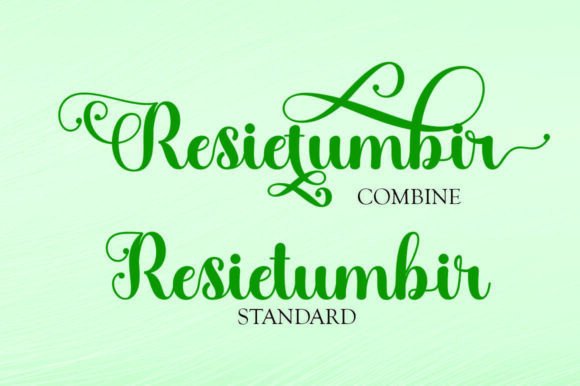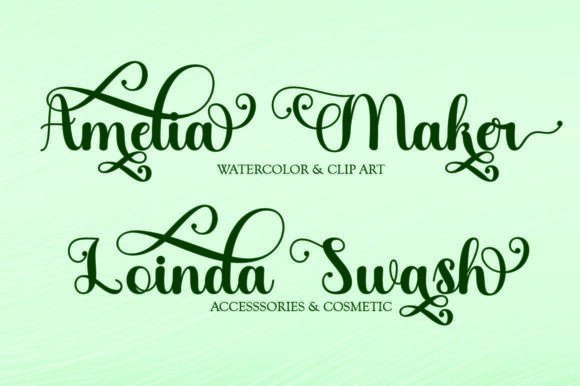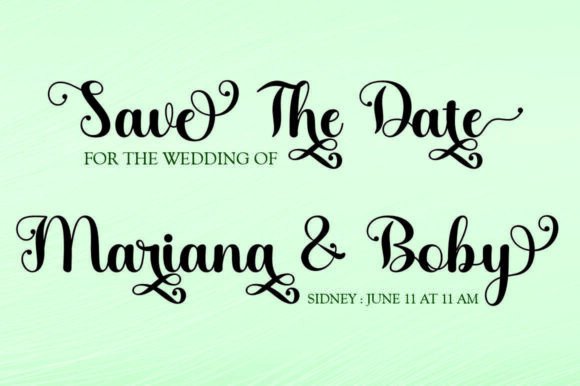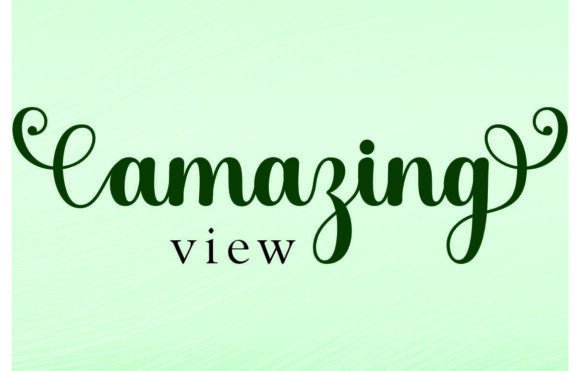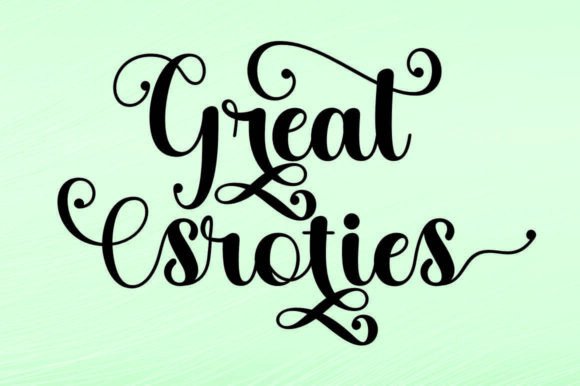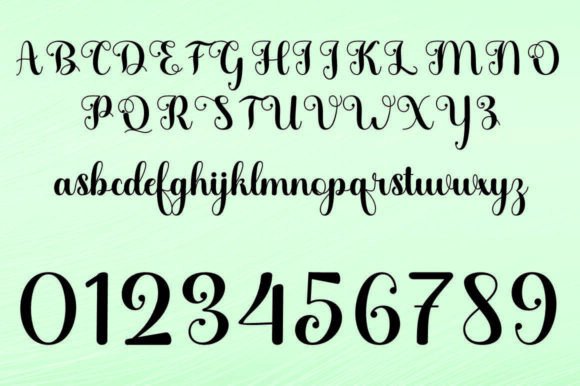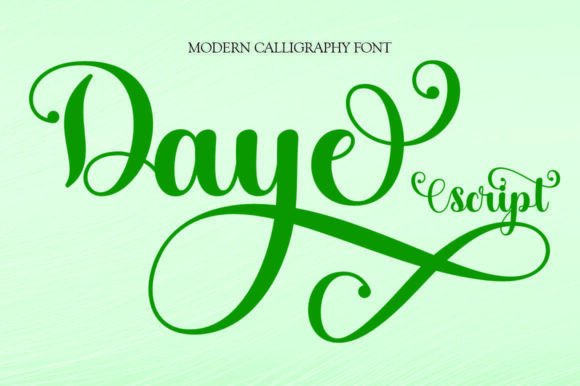
Introducing Daye Script Font: Elevate Your Designs with Elegance and Sophistication
In the world of typography, a well-crafted font can make all the difference in elevating your design to the next level. For designers and crafters seeking a modern calligraphy style that exudes casual elegance, look no further than the Daye Script Font. This beautiful font is designed to bring a touch of sophistication to a wide range of projects, from wedding invitations and signage to headlines, logos, packaging, and product branding.
What is Daye Script Font?
Daye Script is a modern calligraphy design volume that embodies the perfect blend of casual and graceful elements. Its fluid strokes and elegant letterforms make it an ideal choice for designers looking to add a personal touch to their work. Whether you’re creating a romantic wedding invitation or a bold brand logo, Daye Script Font is sure to impress.
Key Features of Daye Script Font
- Modern Calligraphy Style: Daye Script Font boasts a fresh and contemporary calligraphy style that’s perfect for designers looking for a unique and stylish font.
- Casual yet Elegant: The font’s casual elegance makes it suitable for a wide range of projects, from formal events to everyday branding.
- Highly Versatile: Daye Script Font can be used for various design applications, including wedding invitations, signage, headlines, logos, packaging, and product branding.
- Easy to Read: Despite its elegant and cursive nature, Daye Script Font remains highly legible, making it perfect for both digital and print designs.
Use Cases for Daye Script Font
Daye Script Font’s versatility makes it an excellent choice for various design projects. Here are some of the most popular use cases:
- Wedding Invitations: Add a touch of romance and elegance to your wedding invitations with Daye Script Font.
- Signage: Create eye-catching signage for events, businesses, or exhibitions with this stylish font.
- Headlines and Logos: Use Daye Script Font to create bold and memorable headlines and logos that capture your brand’s personality.
- Packaging and Product Branding: Elevate your product packaging and branding with a touch of sophistication and elegance.
Why Choose Daye Script Font?
With so many fonts available, why choose Daye Script Font? Here are a few compelling reasons:
- Unique and Exclusive: Daye Script Font offers a fresh and unique calligraphy style that sets it apart from other fonts.
In conclusion, Daye Script Font is an exceptional modern calligraphy design volume that offers a perfect blend of casual elegance and sophistication. Its versatility, legibility, and stylish letterforms make it an ideal choice for designers and crafters looking to elevate their designs. Whether you’re working on a wedding invitation, signage, headline, logo, packaging, or product branding, Daye Script Font is sure to bring a touch of elegance and refinement to your project.